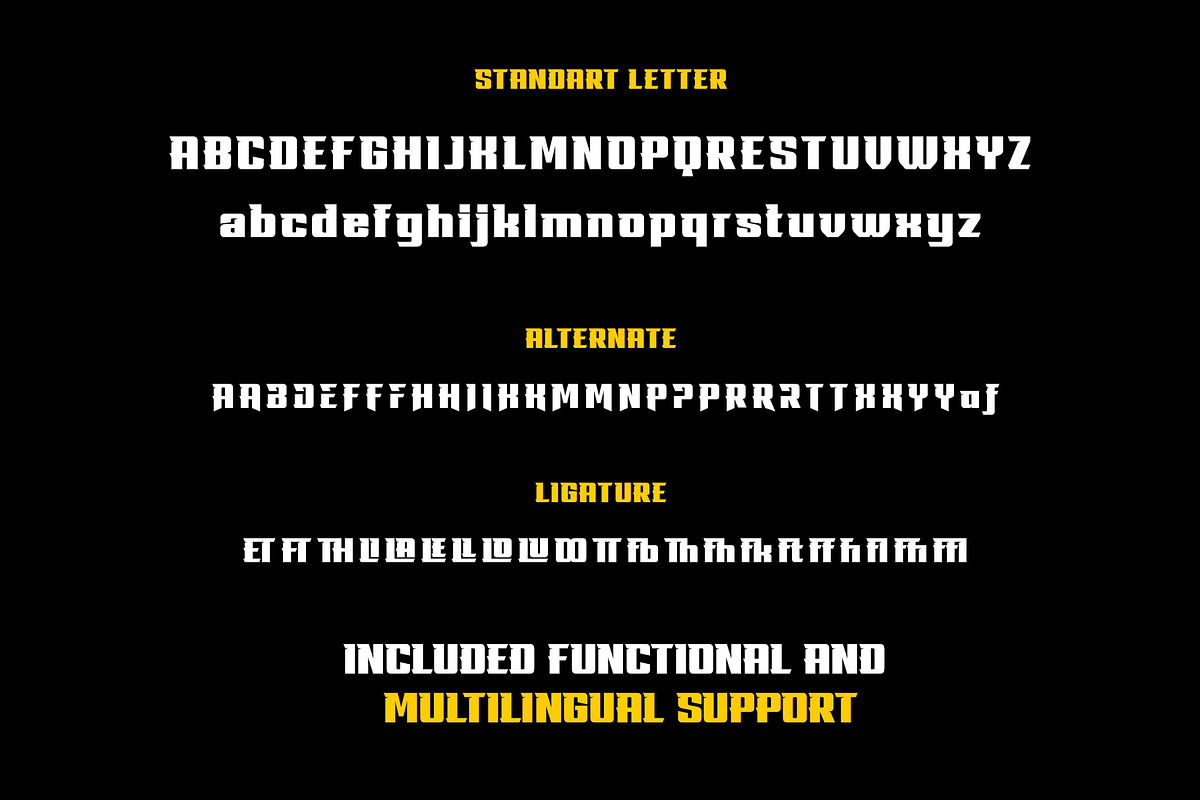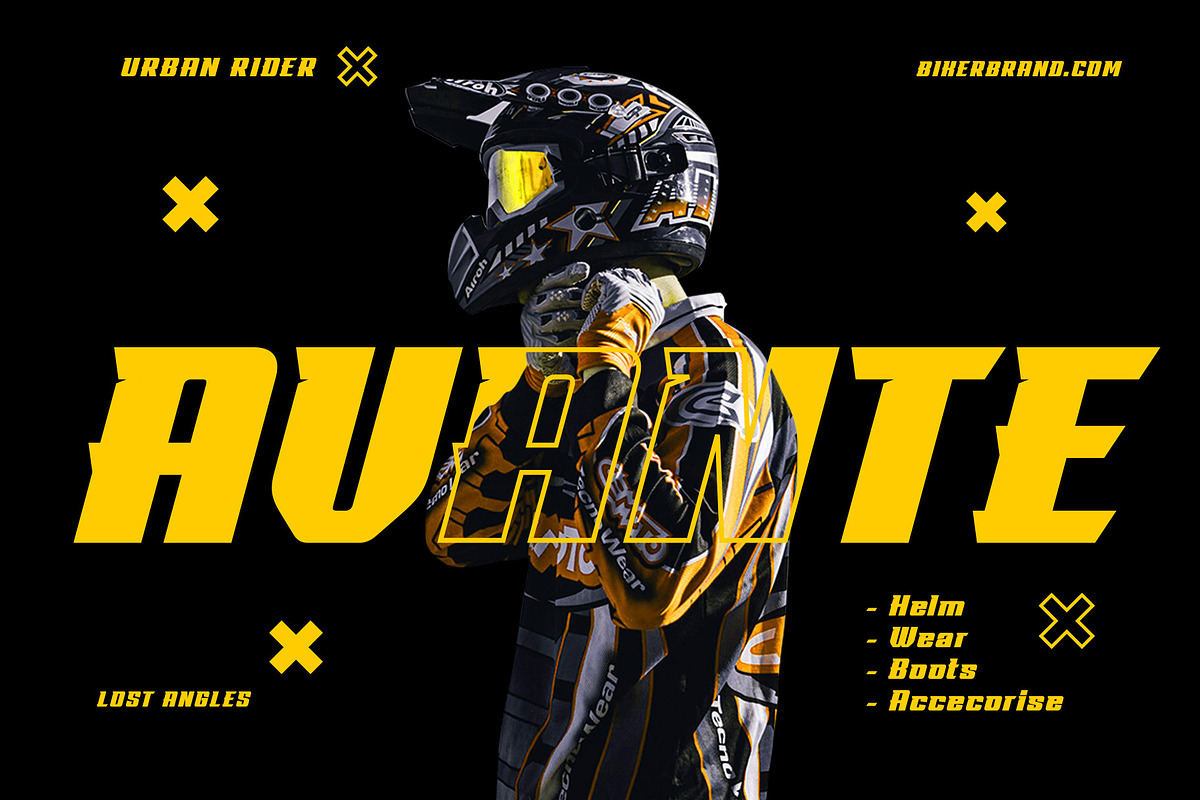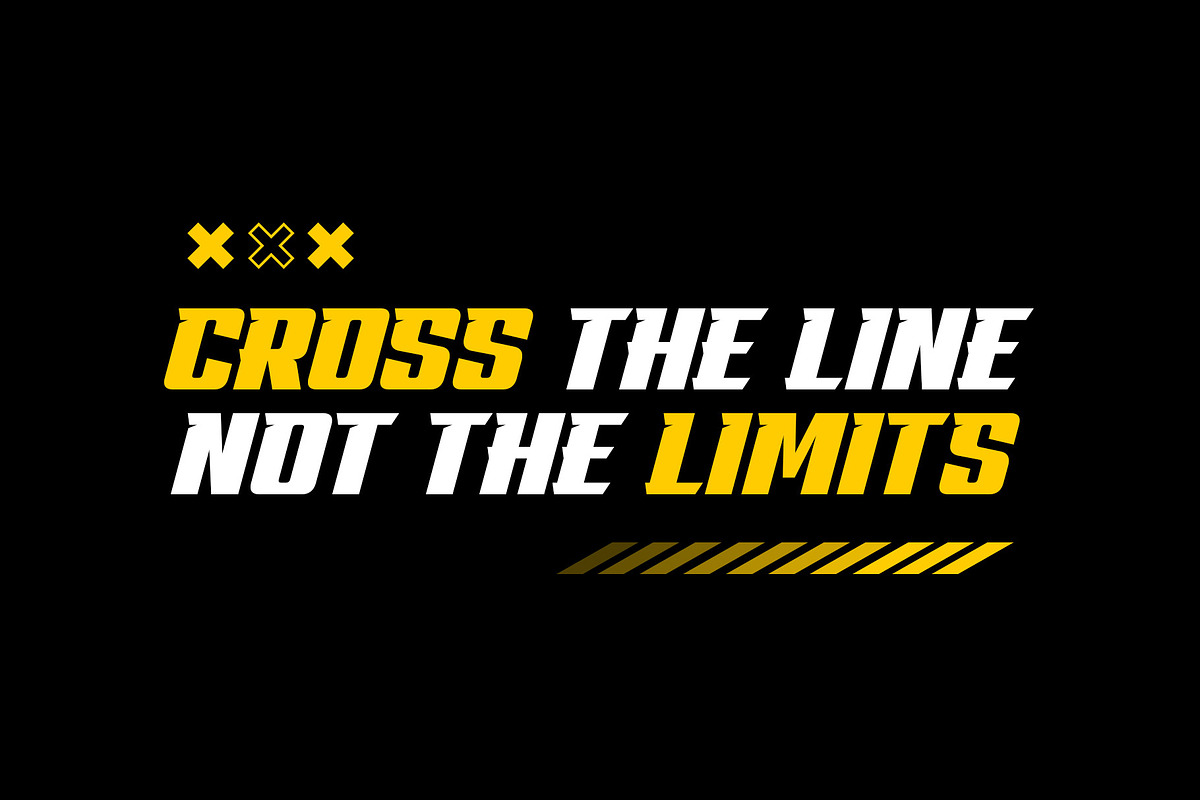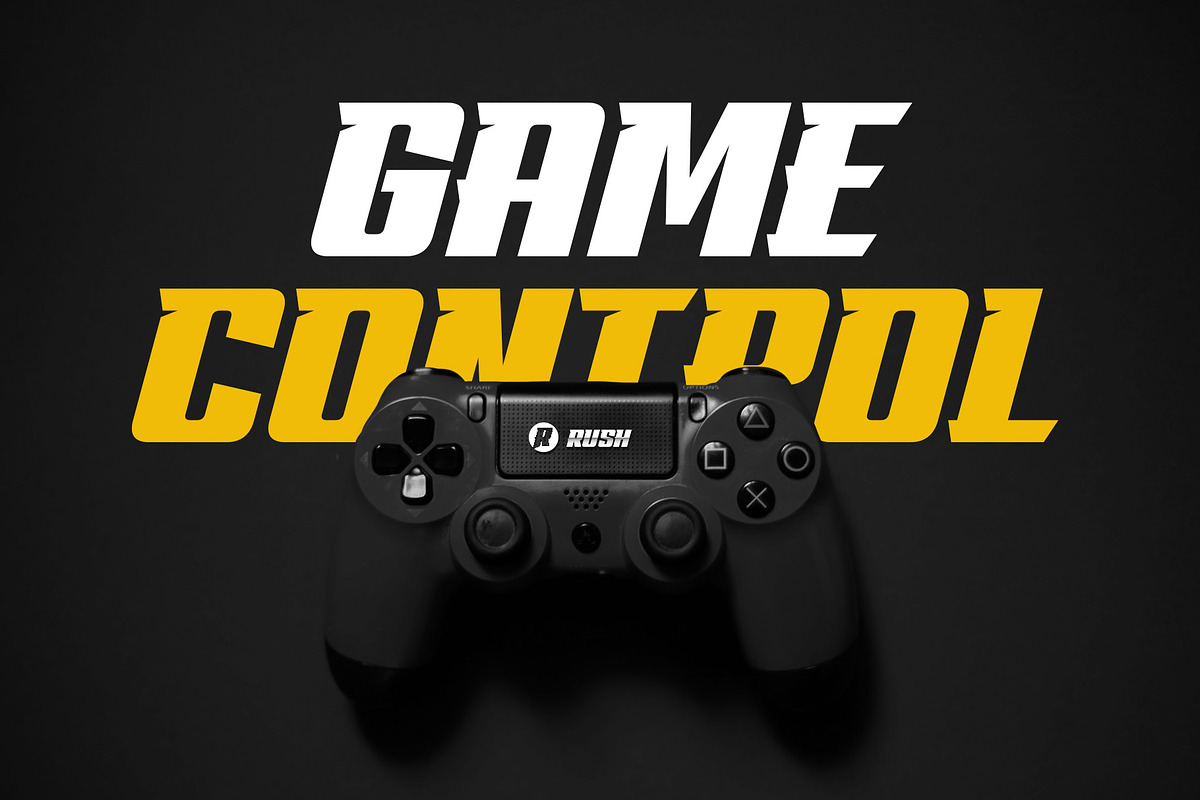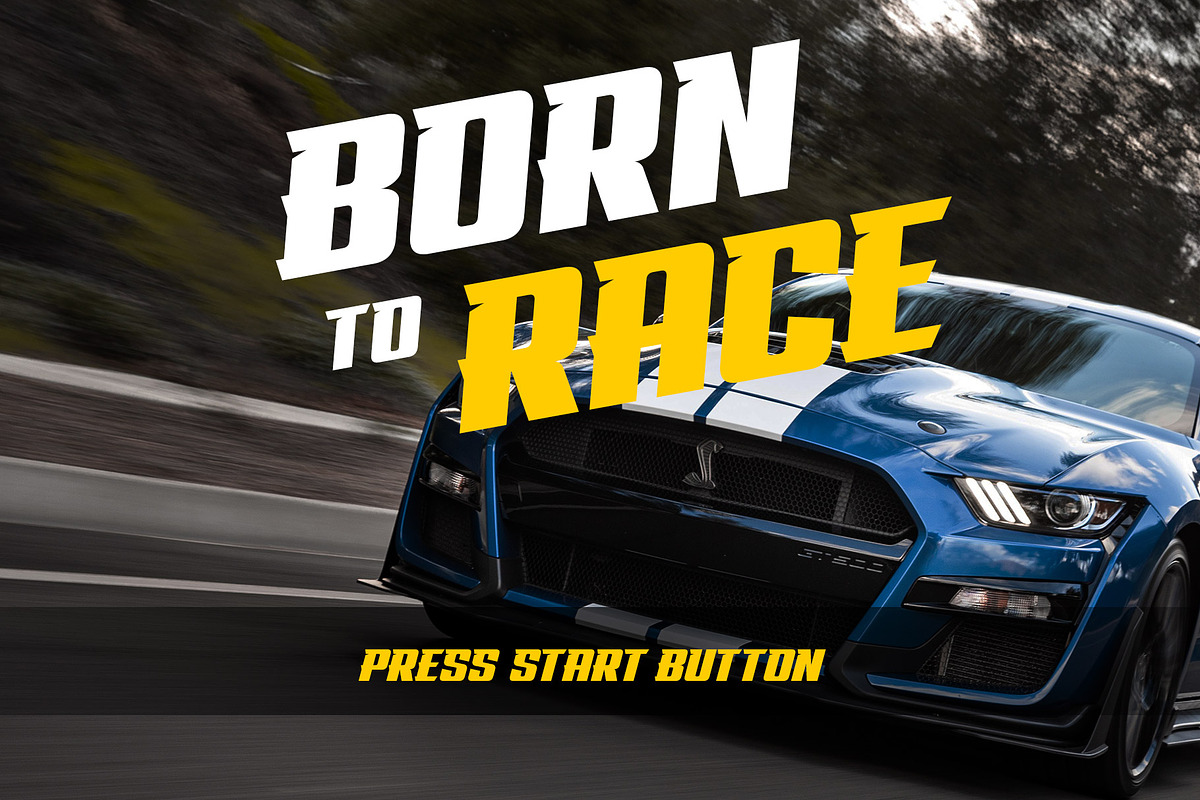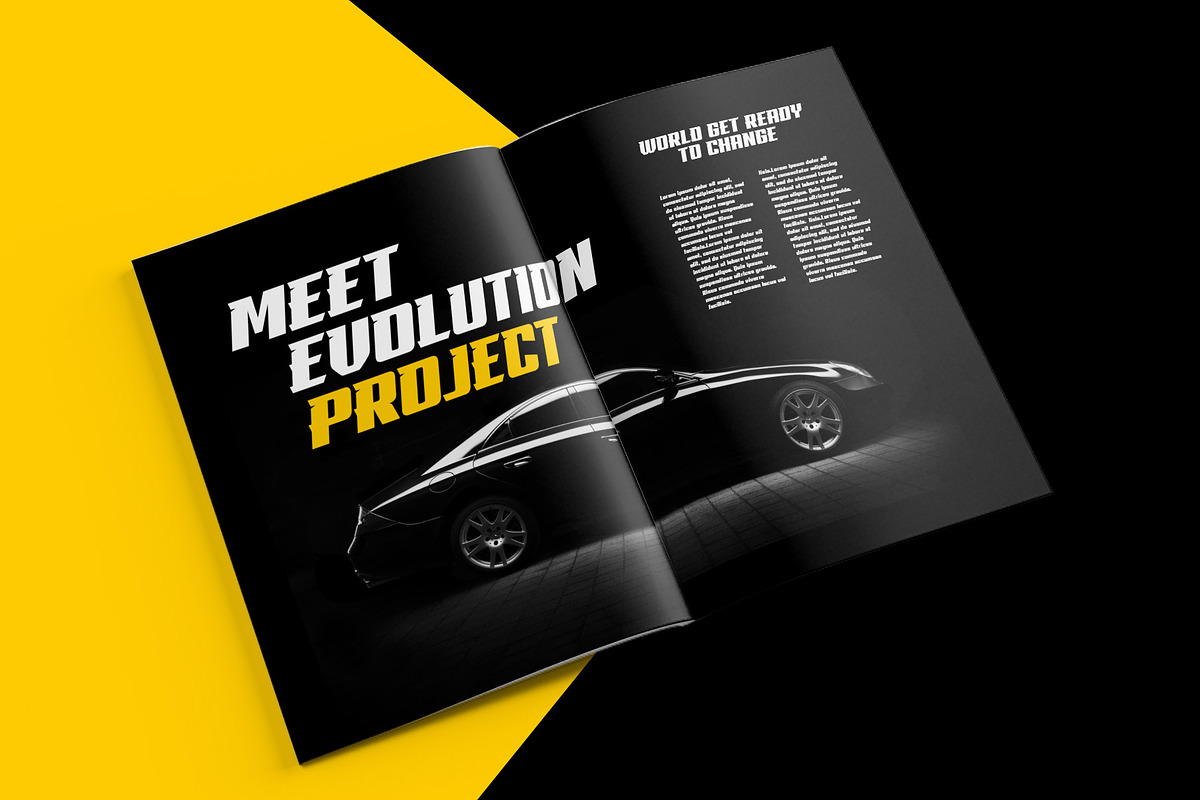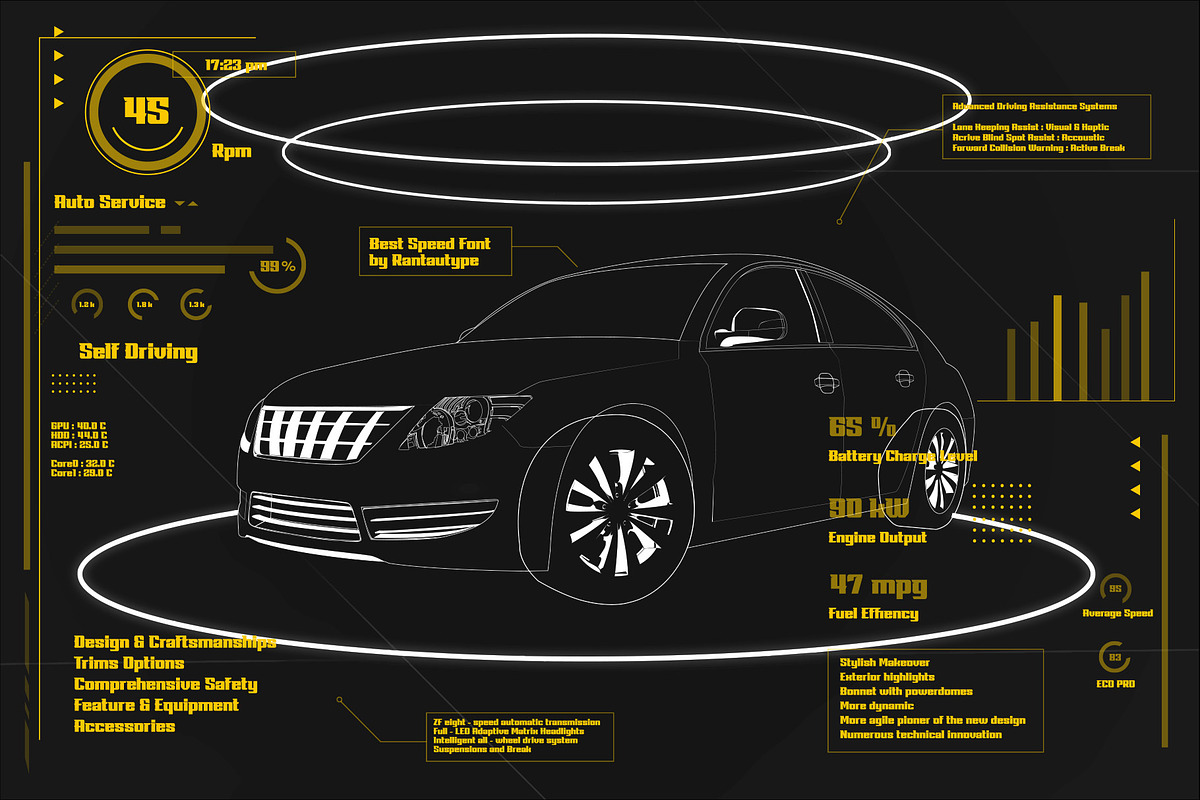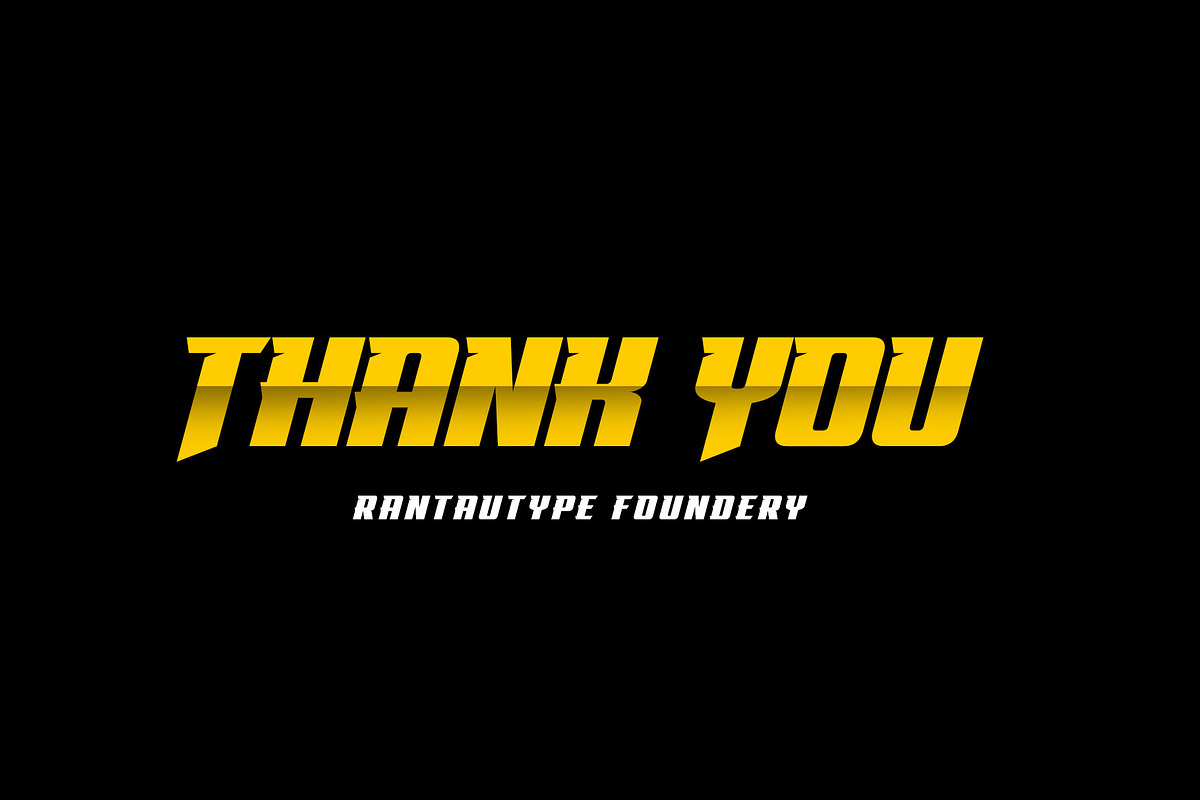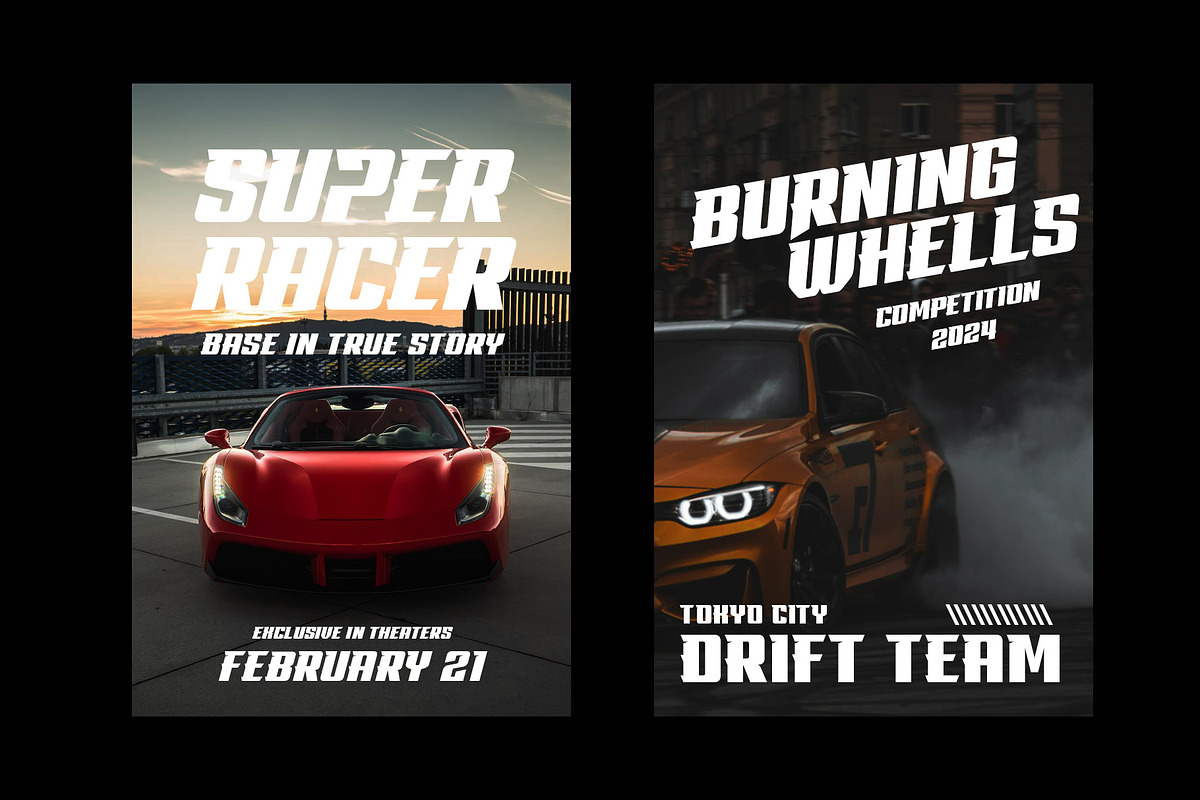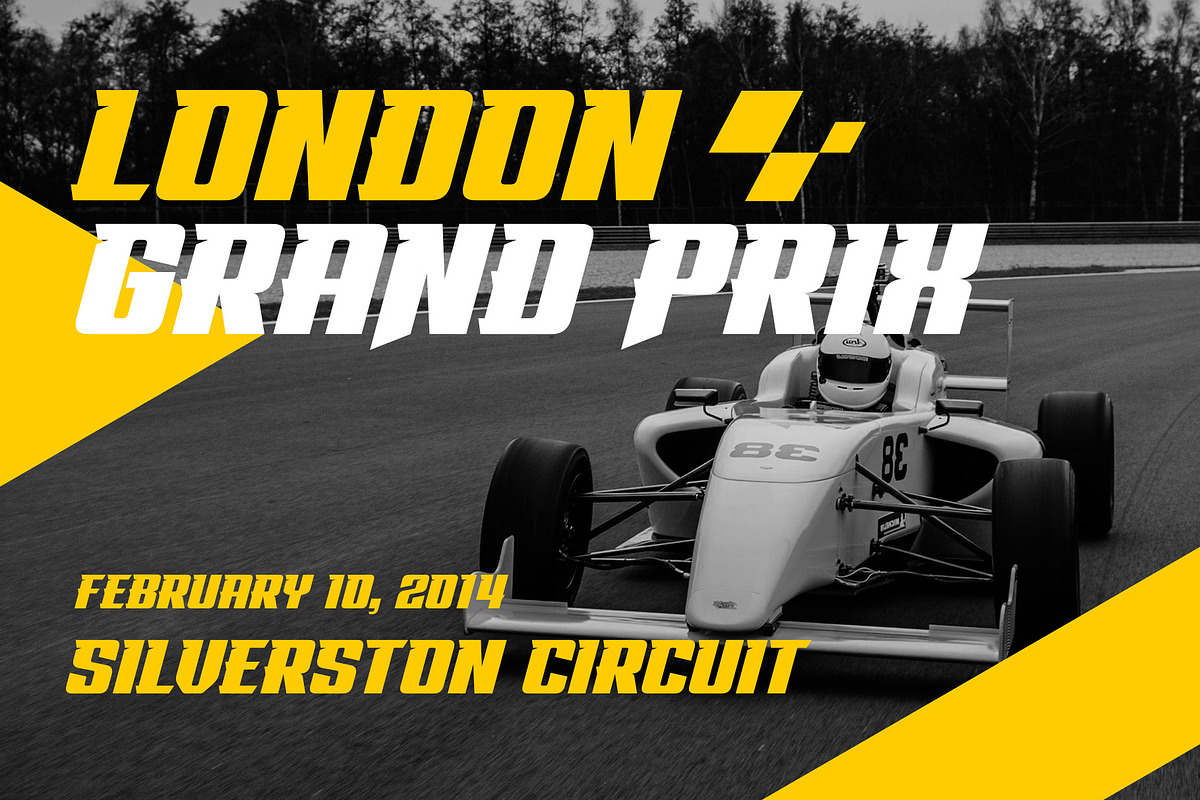
Best Racer - Racing Font
Hi Ladies and Gentleman ! Proudly present best racer font, by rantautype.
Experience racing in a visual form for your design with the best racer font. Inspired by the fast car brand and futuristic digital concept, targeting the fast forward mentality with a bold shape to make the statement louder and faster than ever. Best racer come with alternate, ligature and mulilingual support.
Perfectly suitable for any creative endeavor, sports brand, logo, esports, games, posters, film/movice, car brands, automotive events, advertising, motorcycles, digital futuristic concept and more. Now you using best racer to elevate you design or branding.
- Standar letter A-Z and a-z
- Alternate and Ligature